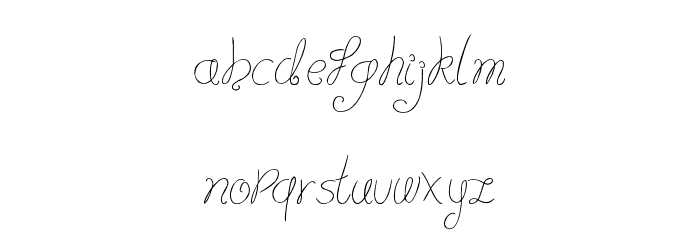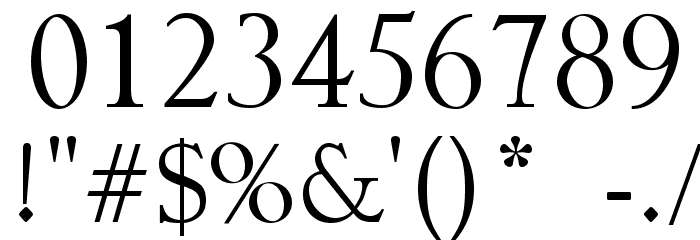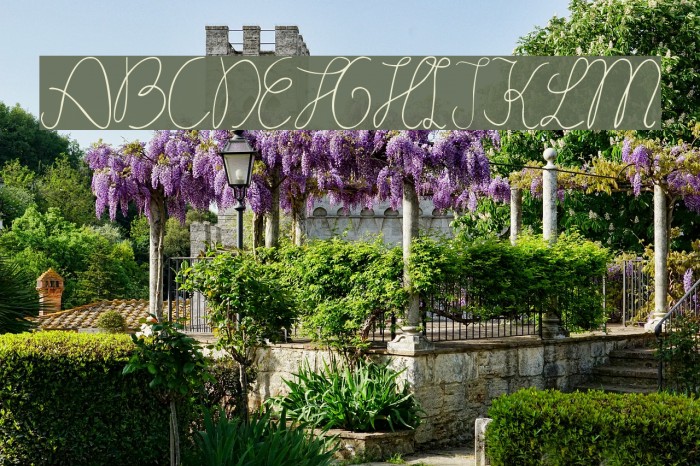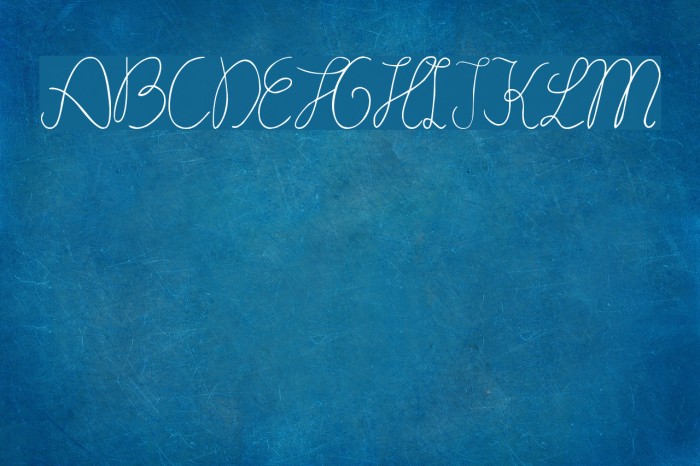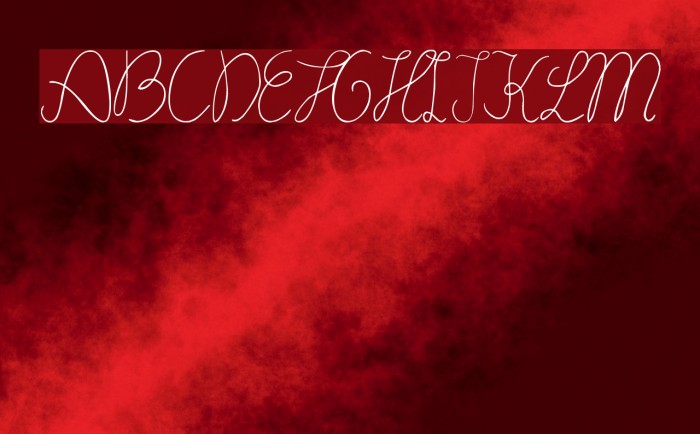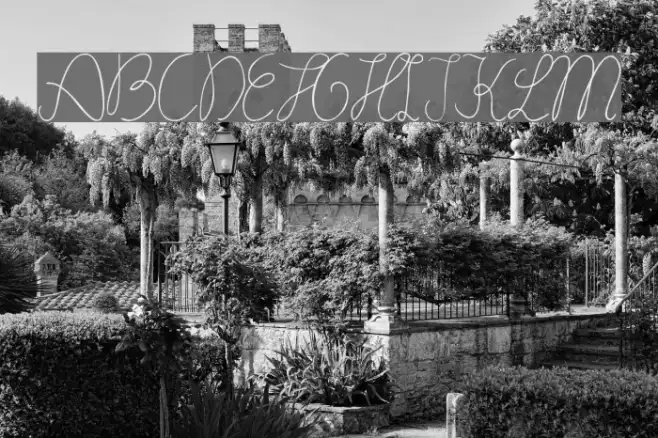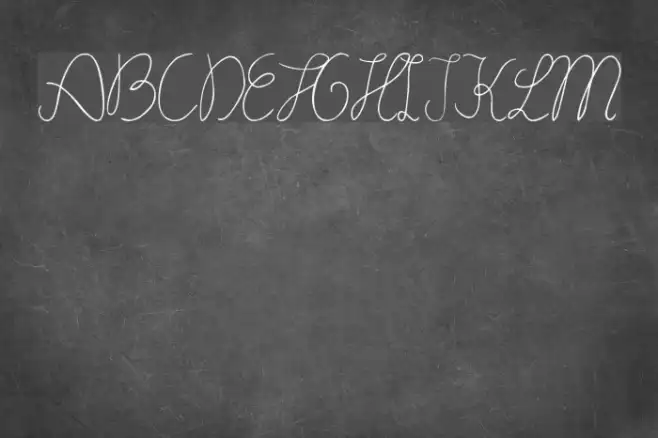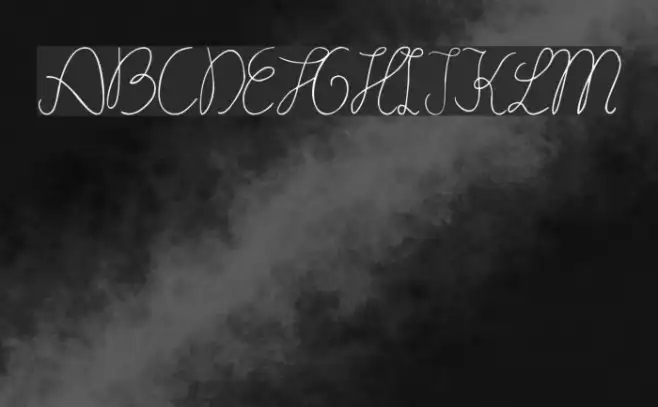
lydeke Handwrithing Font
This font exudes a delicate and elegant handwritten style, characterized by its flowing and interconnected letterforms. The uppercase letters are tall and slender, with graceful curves that give a sense of fluidity and movement. The lowercase letters maintain a consistent style, with some characters featuring unique loops and swirls that add a touch of whimsy. The numerals are more structured, providing a nice contrast to the script-like letters. Special characters are included, maintaining the overall aesthetic with a slightly more formal appearance. This font is perfect for projects that require a personal touch, such as invitations, greeting cards, or branding that seeks to convey elegance and sophistication.
A delicate, elegant handwritten font with flowing, interconnected letterforms.
- Proposed Projects: Ideal for invitations, greeting cards, personal branding, and elegant design projects.
- Overall Style: Elegant, Whimsical
- Use Case: Headlines, Logos, Invitations